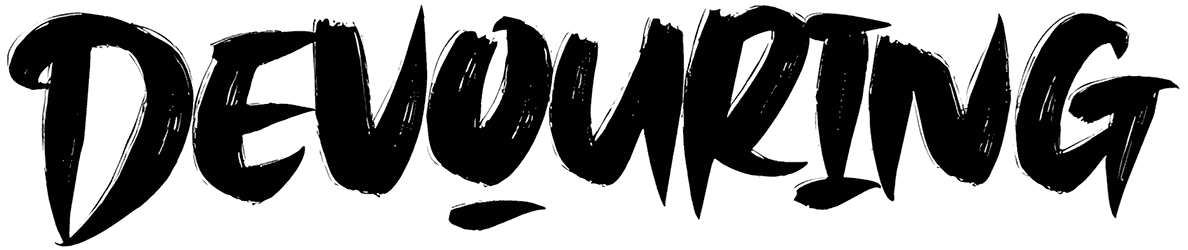
Devouring Font
Devouring, a new asset that comes in the form of a brush font, seems to meet your needs magnificently. If you want your projects to seem beautiful, the best urban font to utilize is Devouring.
Even though this font doesn’t have any lowercase letters, it’s perfect for ads, movie titles, and anything else that needs a bolder, more noticeable touch, thanks to its two sets of uppercase letters.